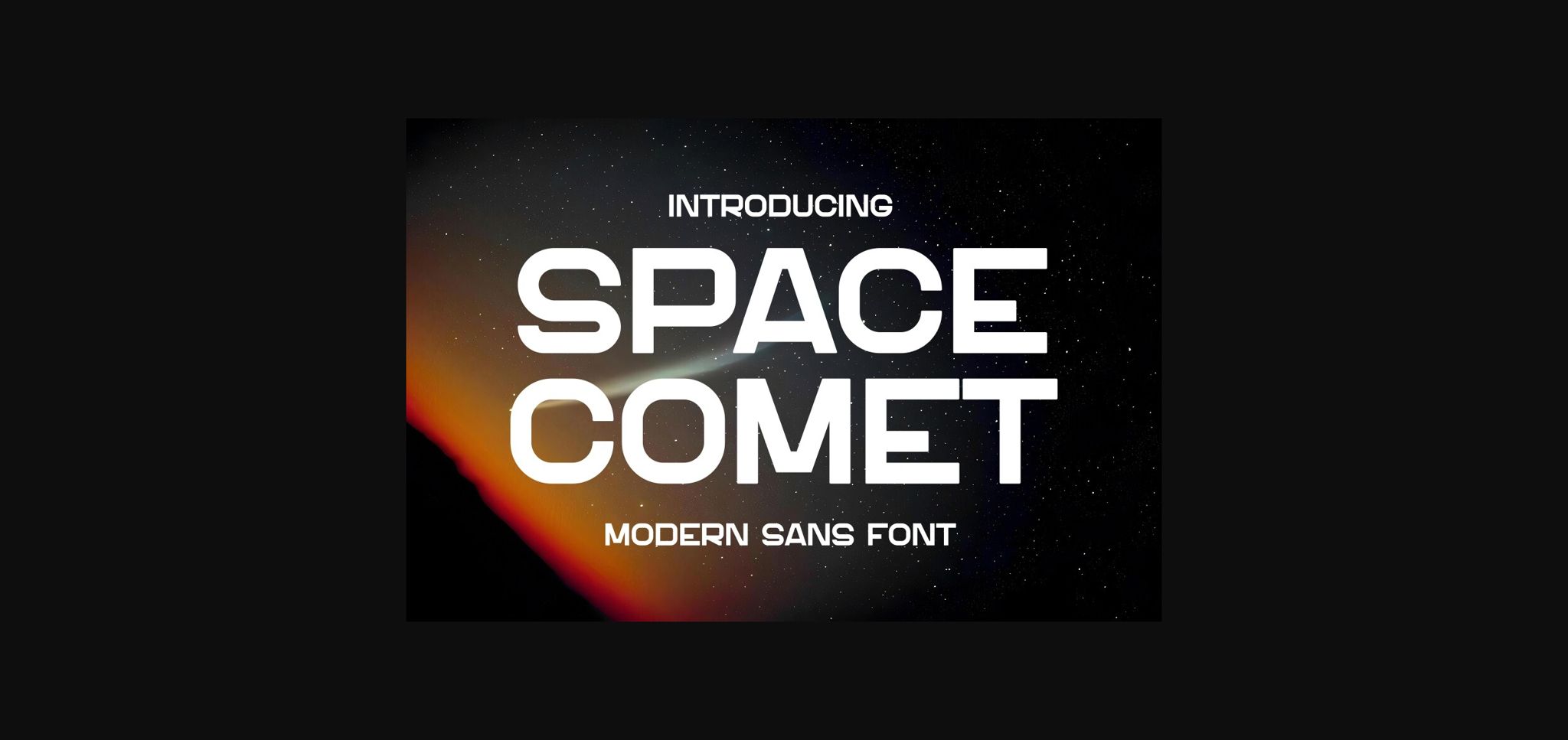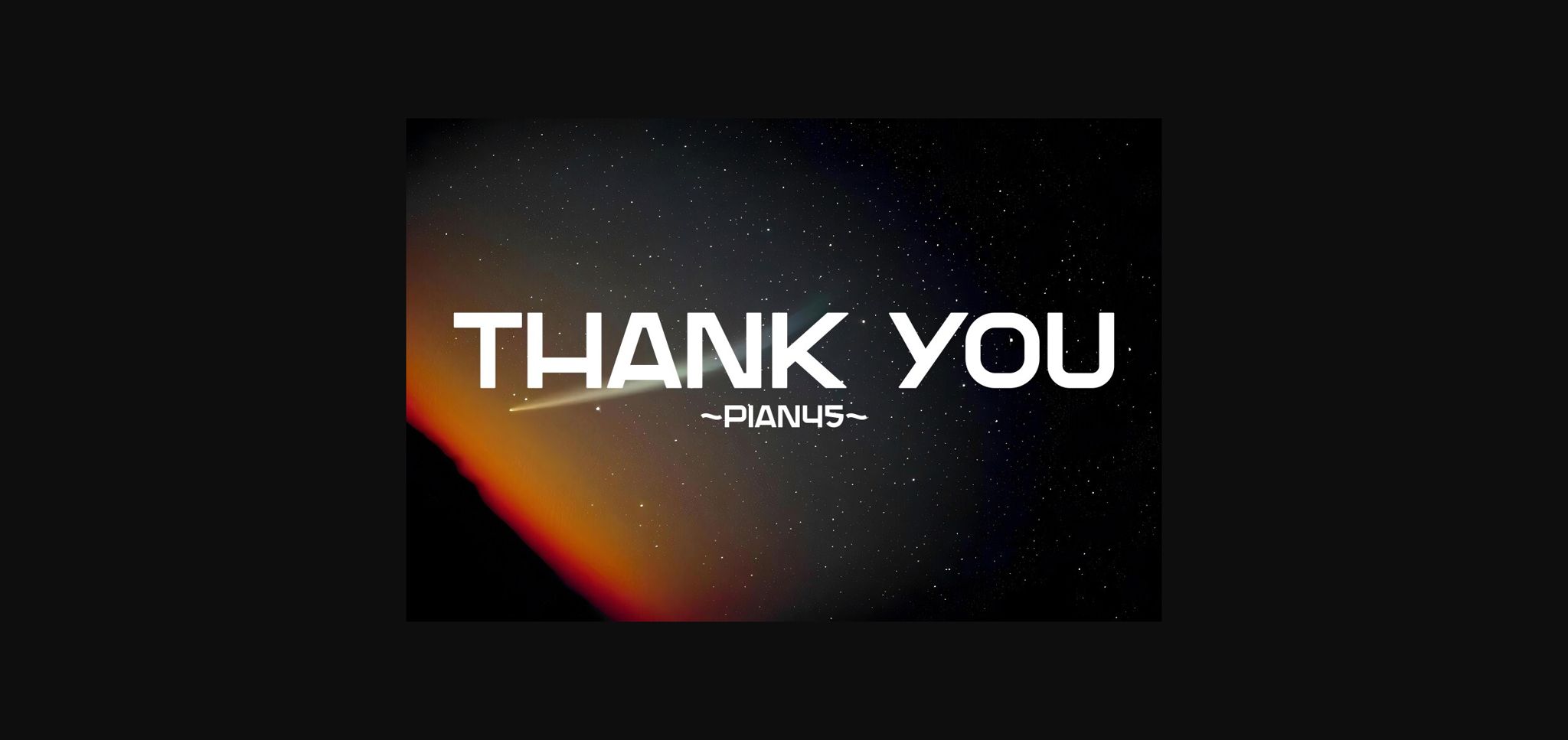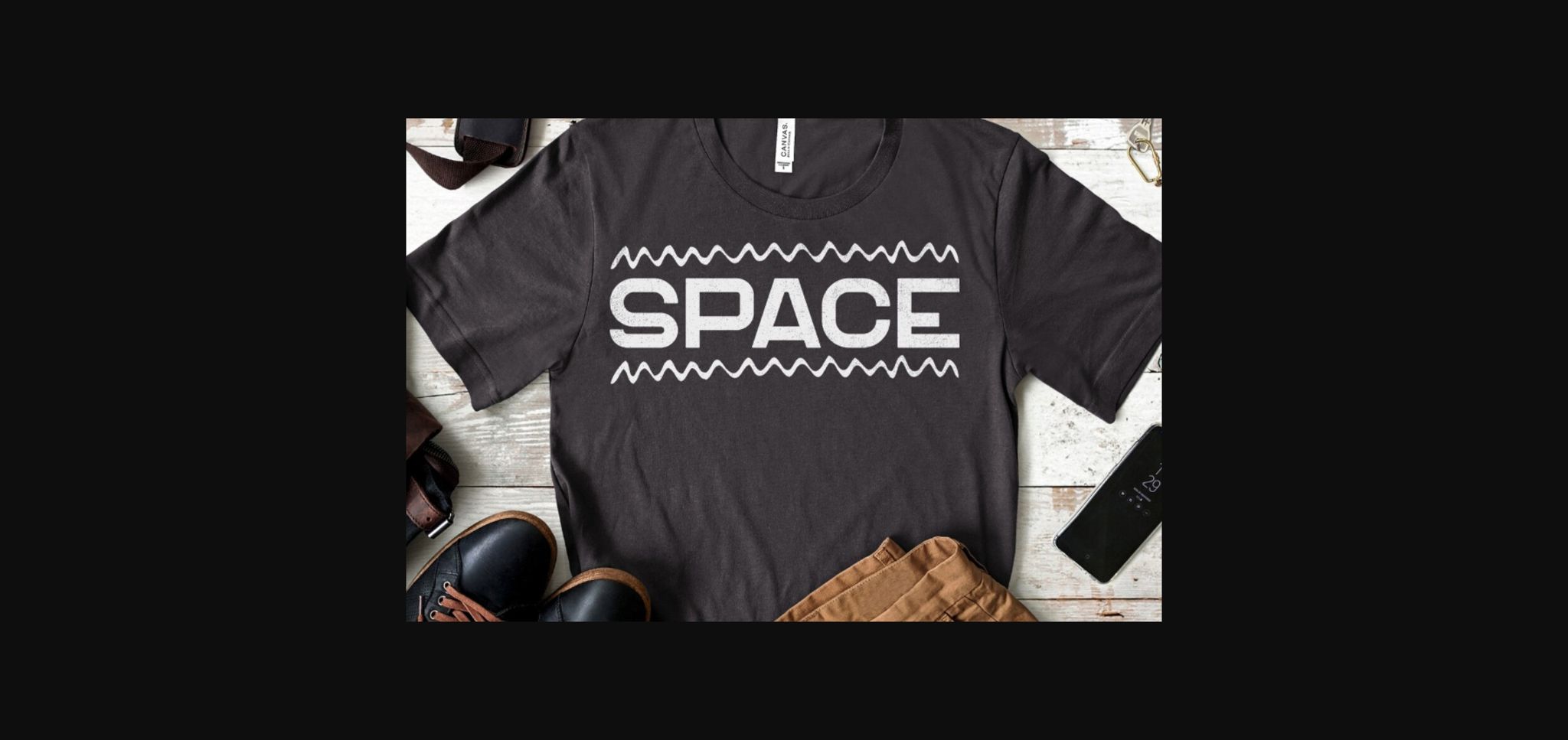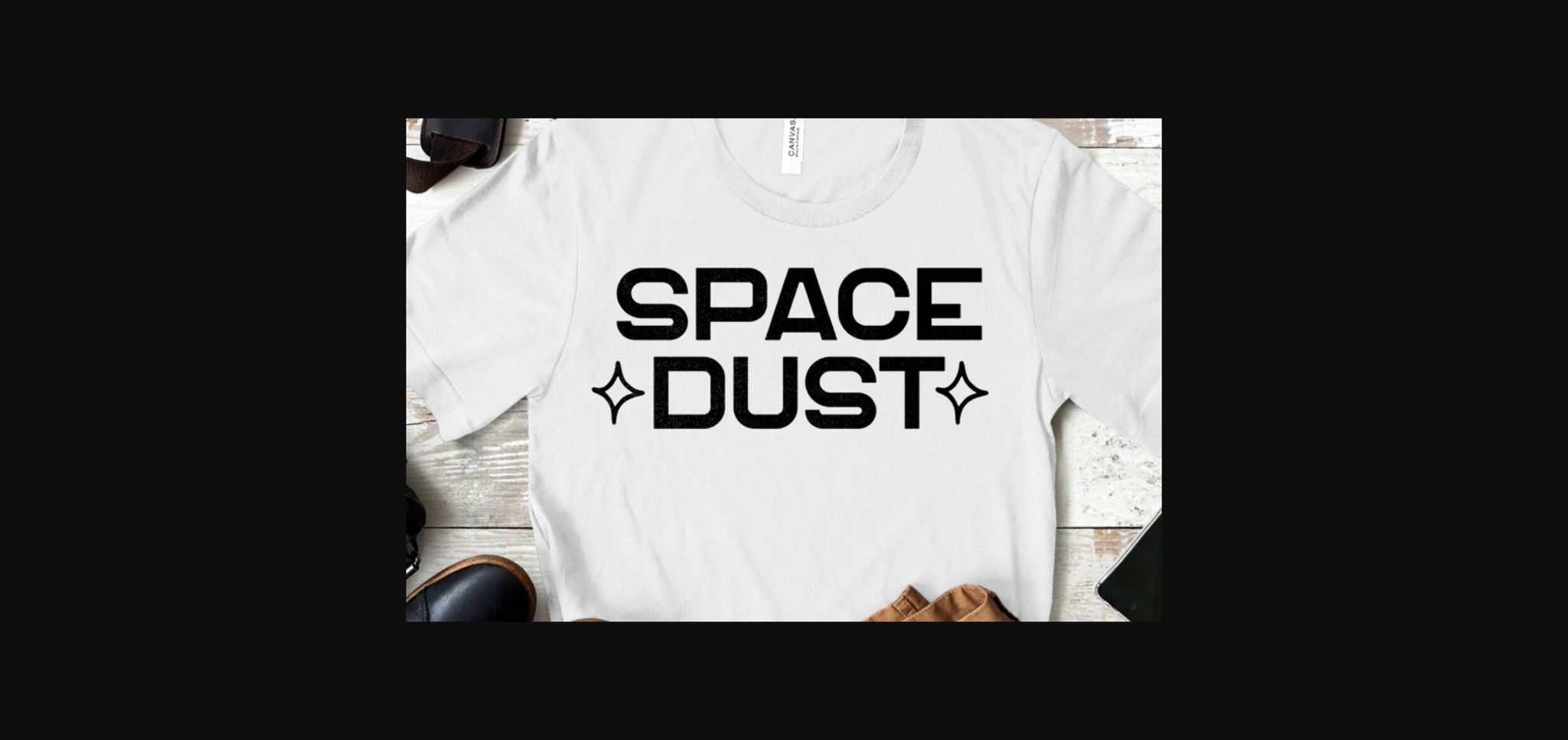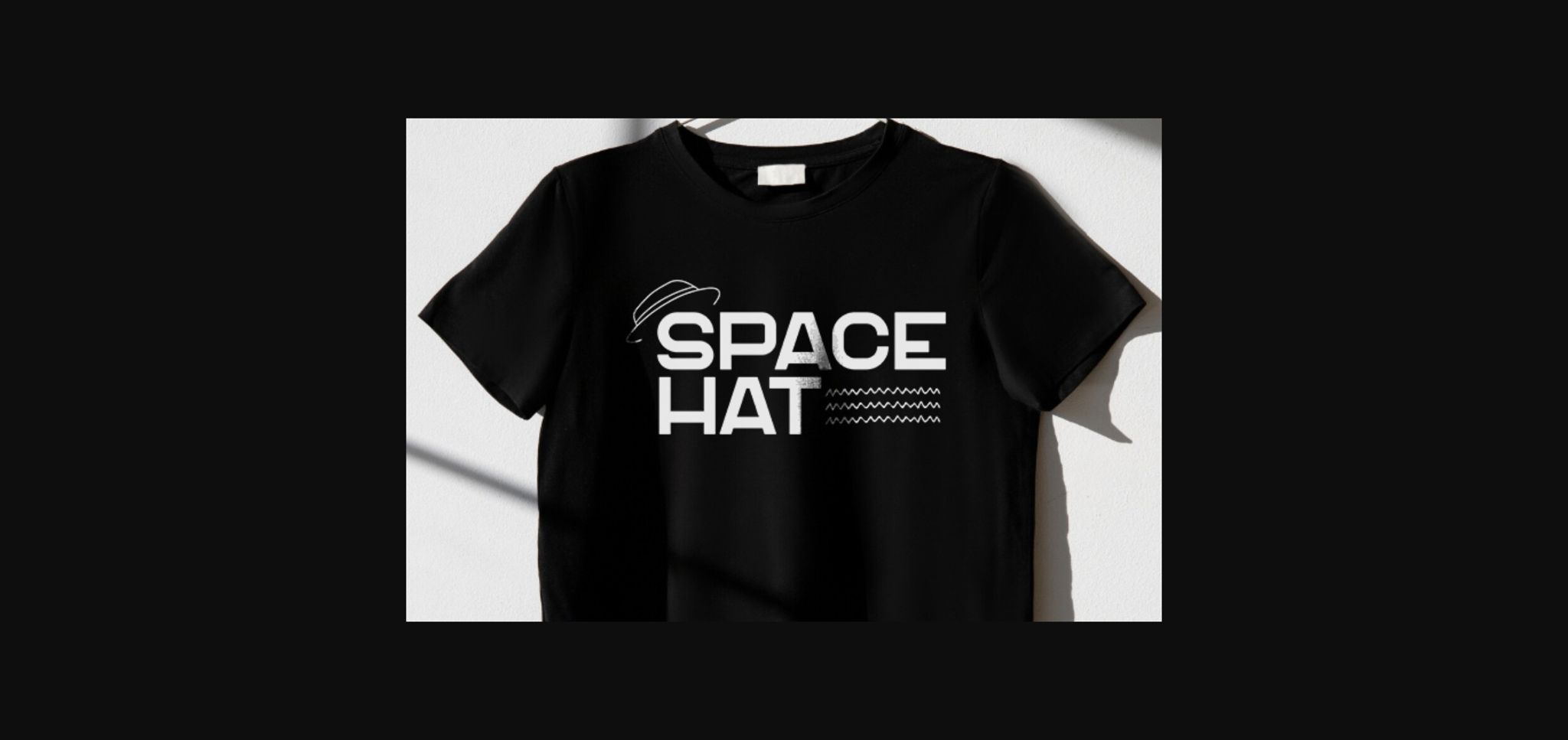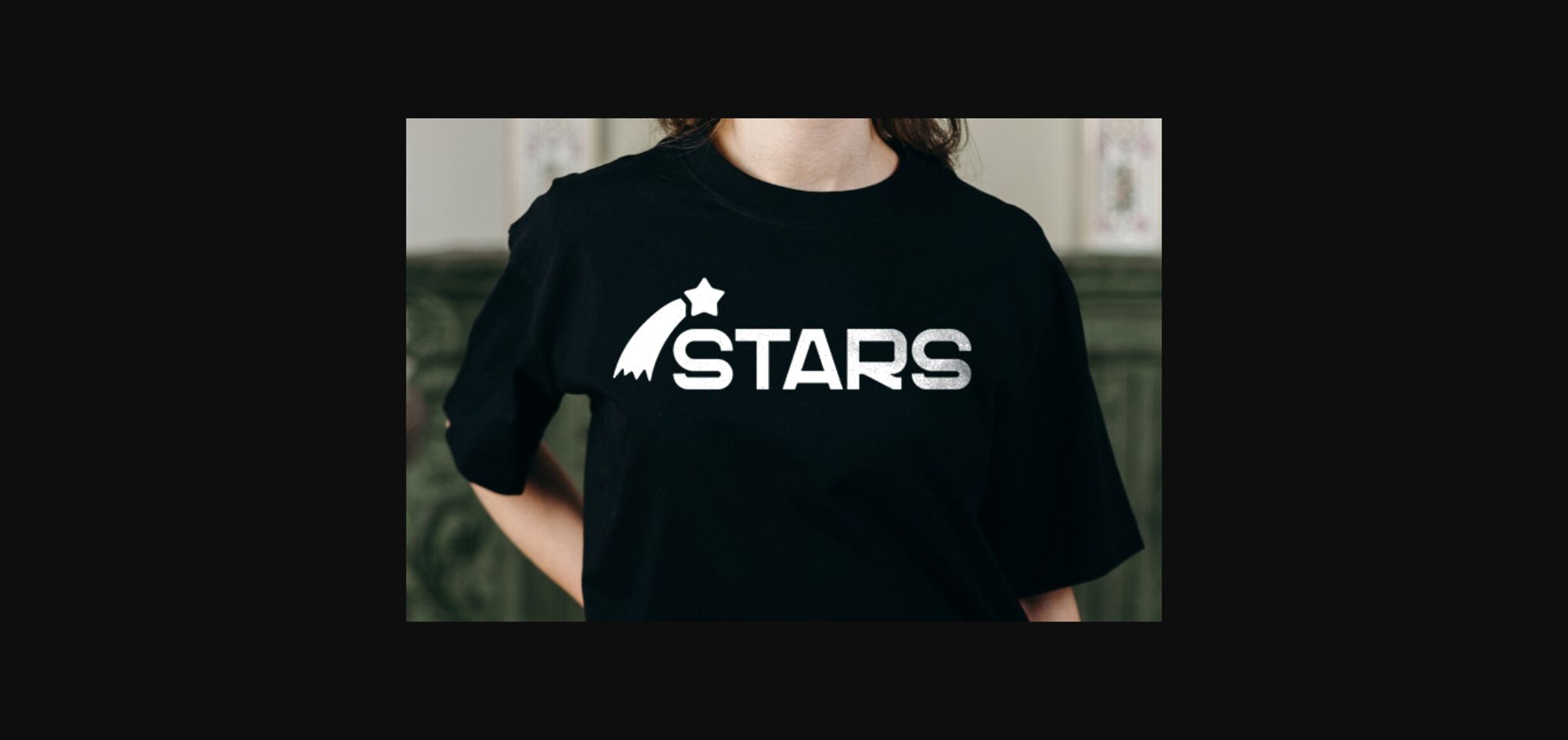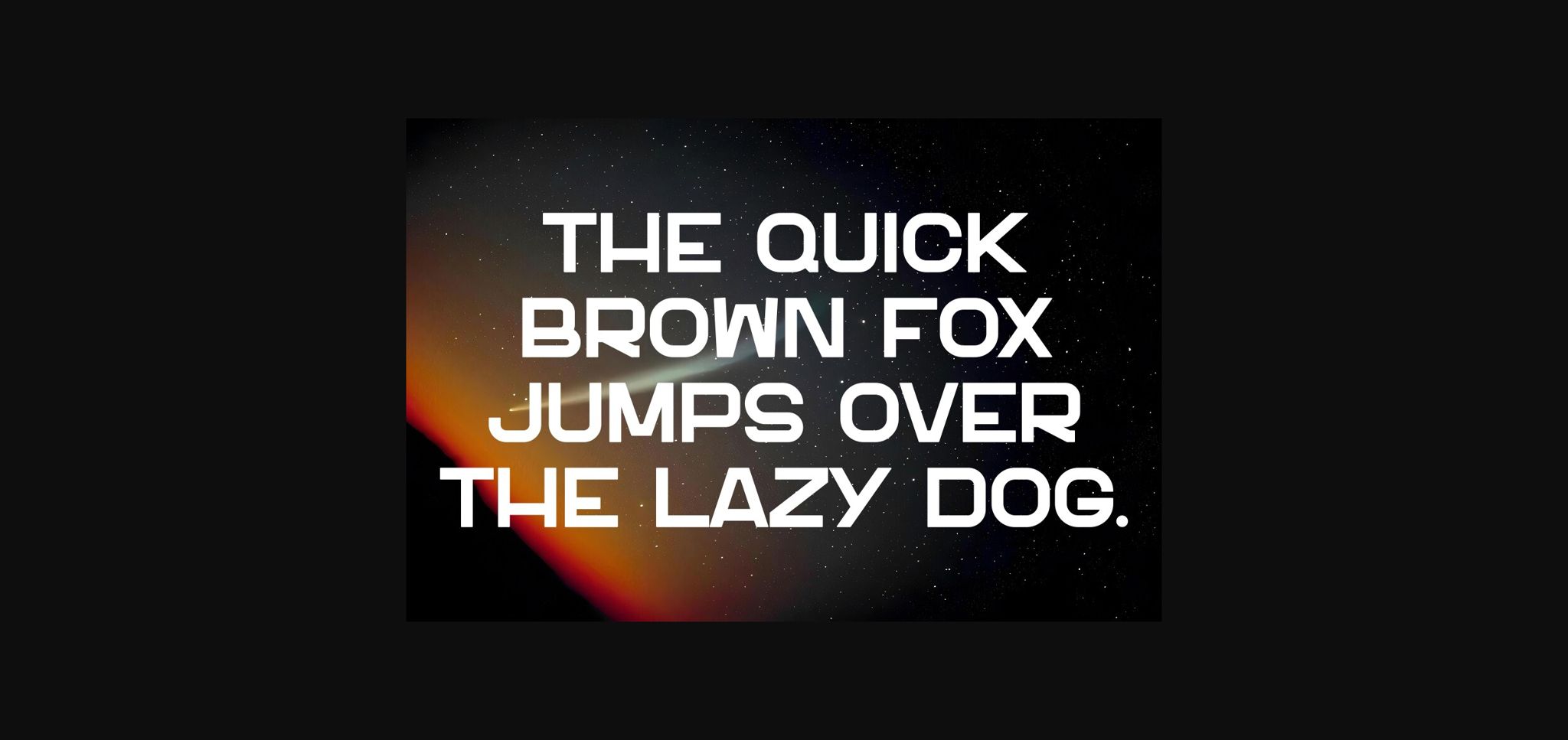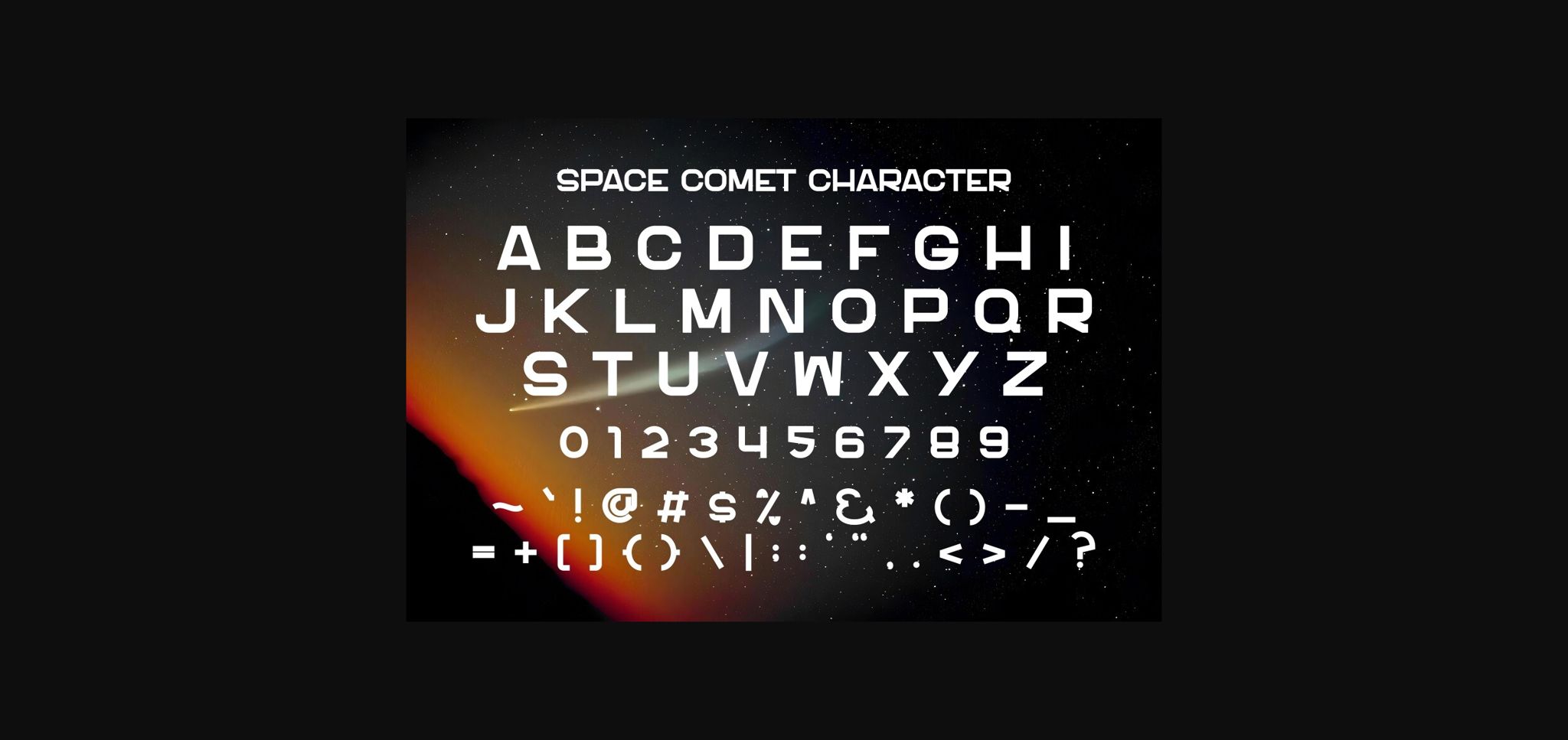
Space Comet Font
About Space Comet Font
Space Comet is a modern sans font that takes you on a cosmic journey with its sleek sans-serif style. This font captures the essence of modernity and adventure. Space Comet is perfect for adding a touch of cosmic flair to your designs, whether for branding, headlines, or futuristic projects.